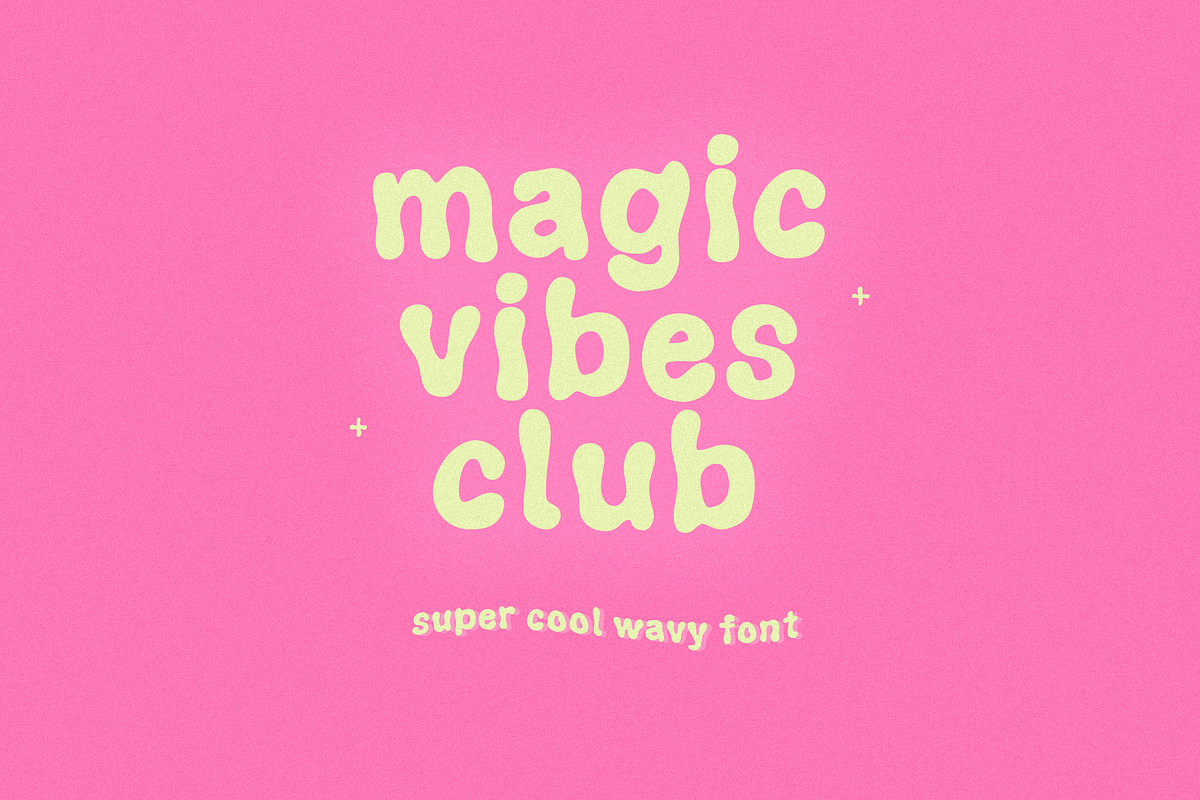
Turn up the groove with Magic Vibes Club Retro Wavy Font Free Download — a funky, nostalgic typeface that brings vintage soul and playful motion to your designs. With its curvy lines and bold personality, this font is perfect for music posters, retro branding, event flyers, t-shirt designs, and anything that needs a splash of throwback fun.
Magic Vibes Club captures the carefree spirit of the ‘70s and wraps it into a modern font that’s impossible to ignore. It includes uppercase and lowercase characters, numerals, punctuation, and multilingual support — giving you all you need to get creative across platforms.